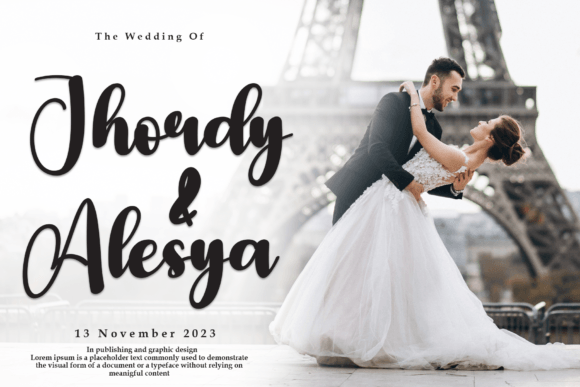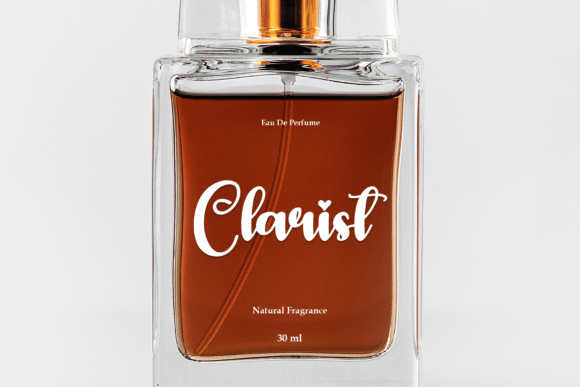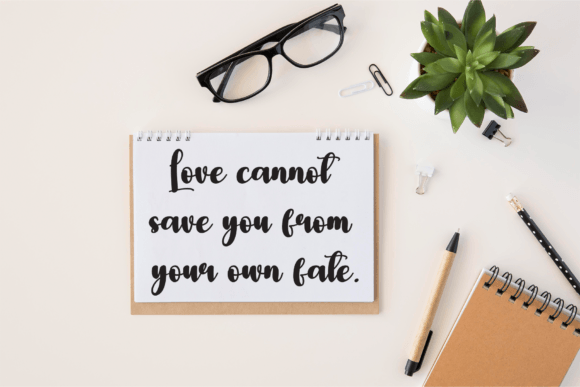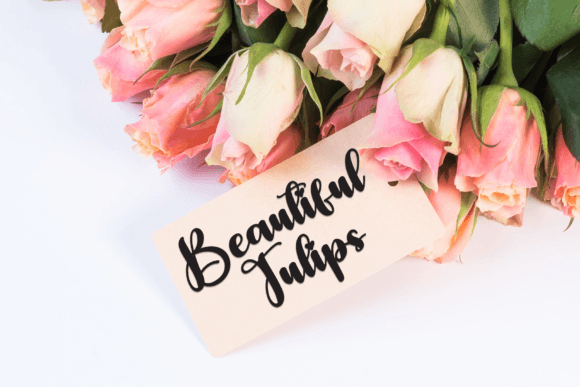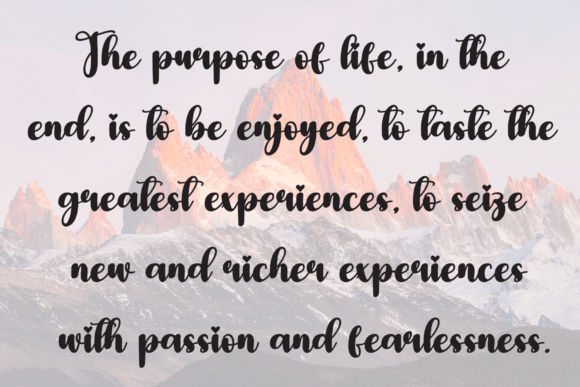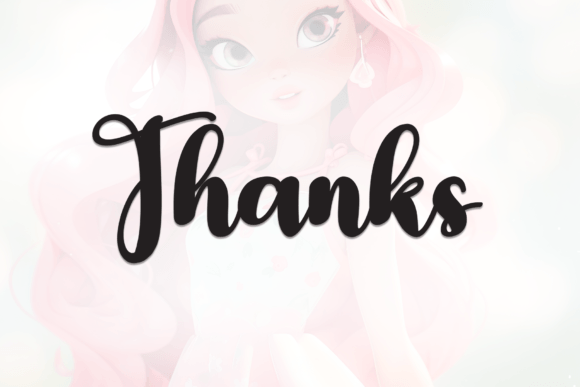
Introduction to Pretty Barbie Font
Pretty Barbie is a sweet and friendly handwritten display font.
Cute and fun, this font is ideal for writing wedding invitations, cards, or any other design that might need a fun touch .
Key Features of Pretty Barbie Font
Why Choose Pretty Barbie Font?
Pretty Barbie Font offers exceptional quality and versatility, making it a valuable addition to your design toolkit. Whether you’re creating for personal projects or commercial use, Pretty Barbie Font delivers professional results.